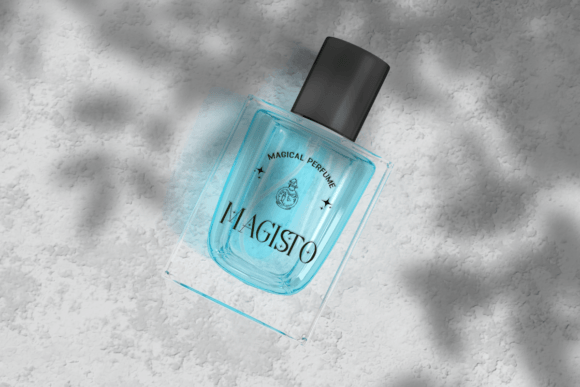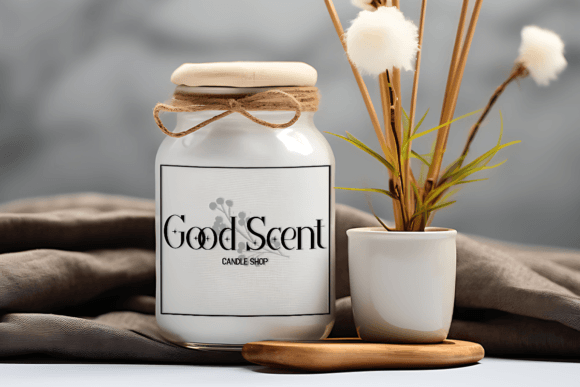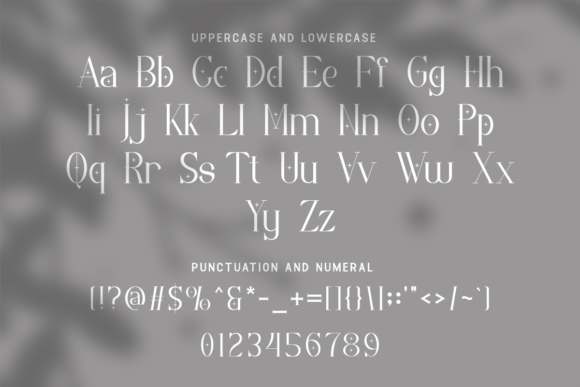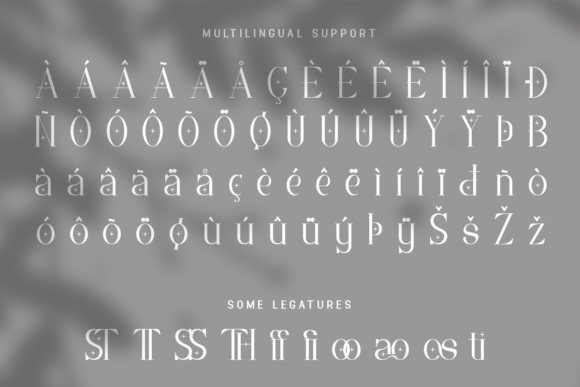
Introducing Costivex Font: Elevate Your Designs with Sophistication and Elegance
In the world of typography, a well-chosen font can make all the difference in the success of a design project. For designers and crafters seeking a typeface that embodies both modern sophistication and timeless elegance, Costivex Serif Font is an exceptional choice. This versatile font combines the classic appeal of serif design with a refined, contemporary aesthetic, making it perfect for a wide range of applications, from branding and editorial design to packaging and more.
The Essence of Costivex Serif Font
Costivex Serif Font is designed to bring a touch of refinement and professionalism to any project. Its clean lines and classic serif style ensure that text stands out with clarity and grace, whether used in digital or print formats. This font’s sophisticated look makes it an ideal choice for designers aiming to create a lasting impression. Whether you’re designing a logo, crafting a wedding invitation, or creating an eye-catching headline, Costivex Serif Font offers the perfect blend of style and readability.
Key Features of Costivex Font
- Modern Elegance: The font boasts a modern, elegant design that fits well with current design trends while maintaining a timeless appeal.
- Versatility: Costivex Serif Font is highly versatile, suitable for a variety of design projects including branding, editorial design, packaging, and more.
- Readability: The clear and classic style of the font ensures high readability, making it perfect for both body text and headlines.
Applications of Costivex Font
The versatility of Costivex Serif Font makes it suitable for a multitude of design applications:
- Branding: Use Costivex to create a sophisticated and memorable brand identity. Its elegant design helps in establishing a professional image.
- Editorial Design: Whether you’re working on a magazine, newspaper, or blog, Costivex Serif Font provides the perfect combination of style and legibility.
- Packaging: Add a touch of elegance to your product packaging with this refined font, making your product stand out on store shelves.
- Wedding and Event Invitations: The classic and graceful design of Costivex makes it an excellent choice for wedding invitations, event flyers, and other formal announcements.
Why Choose Costivex Font?
Choosing Costivex Serif Font for your design projects offers several advantages:
- Unique Aesthetic: The font’s distinctive yet elegant design helps your work stand out in a crowded marketplace.
Costivex Serif Font is a powerful tool for designers and crafters looking to infuse their projects with a sense of sophistication and elegance. Its versatile design, combined with modern elegance and timeless appeal, makes it suitable for a wide range of applications. With its PUA encoding for easy access to glyphs and swashes, Costivex Font is not just a typeface but a design asset that can elevate your work to new heights. Whether you’re creating branding materials, editorial content, packaging, or invitations, Costivex Serif Font is an excellent choice that promises to bring clarity, grace, and professionalism to your designs.